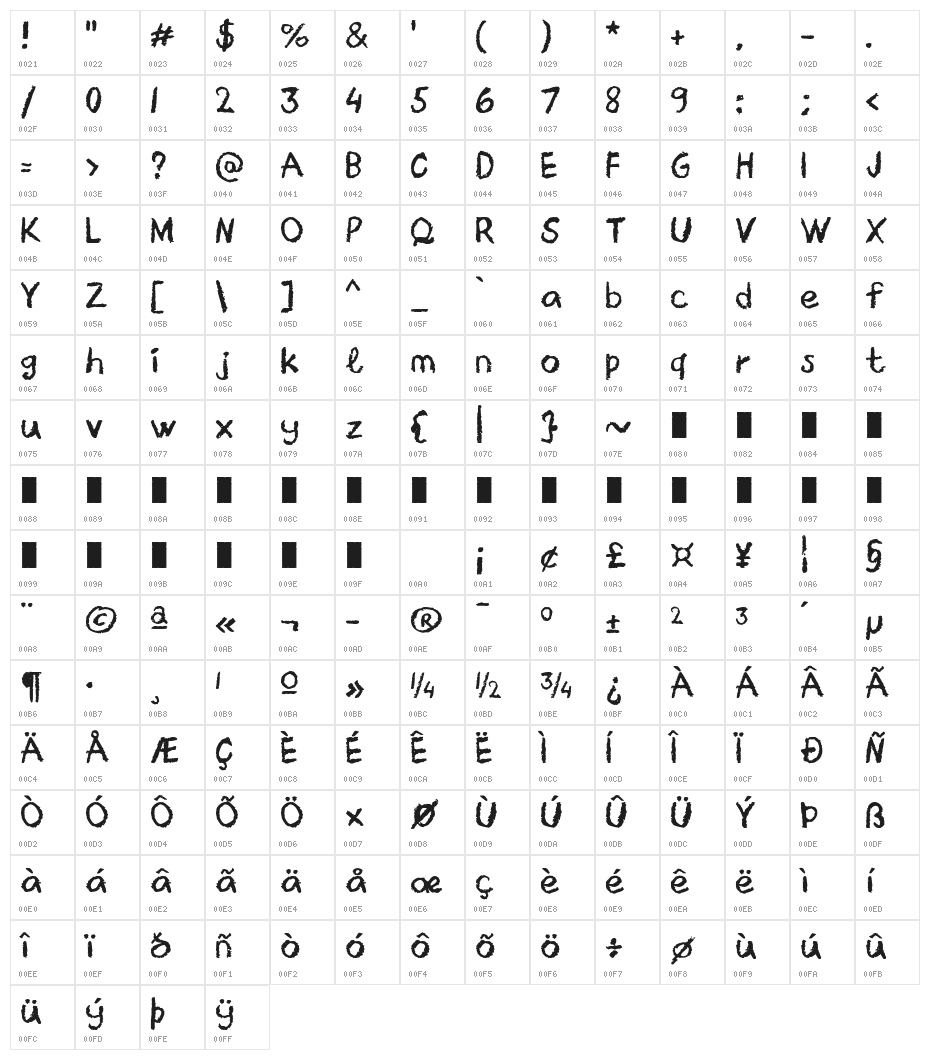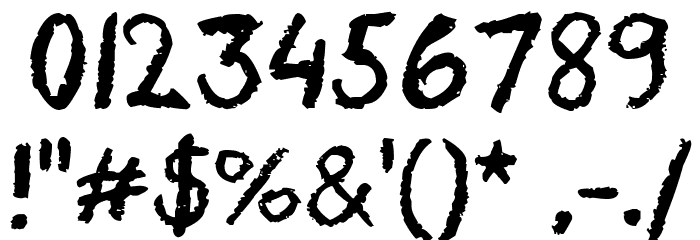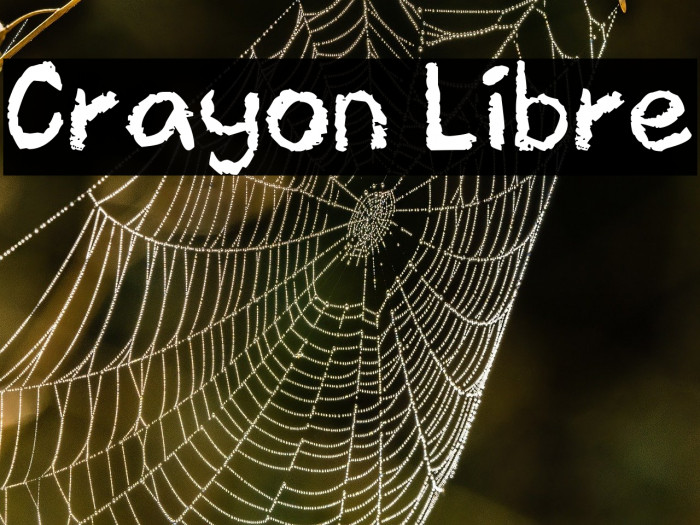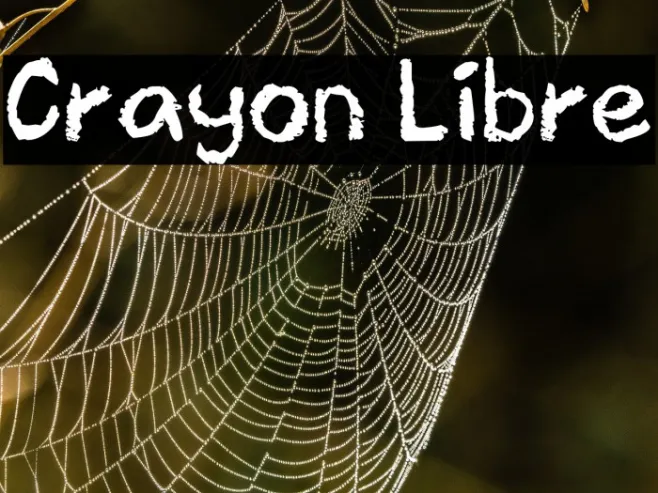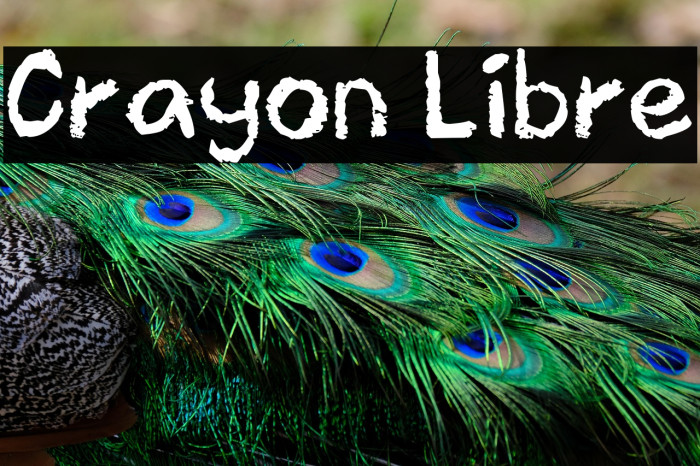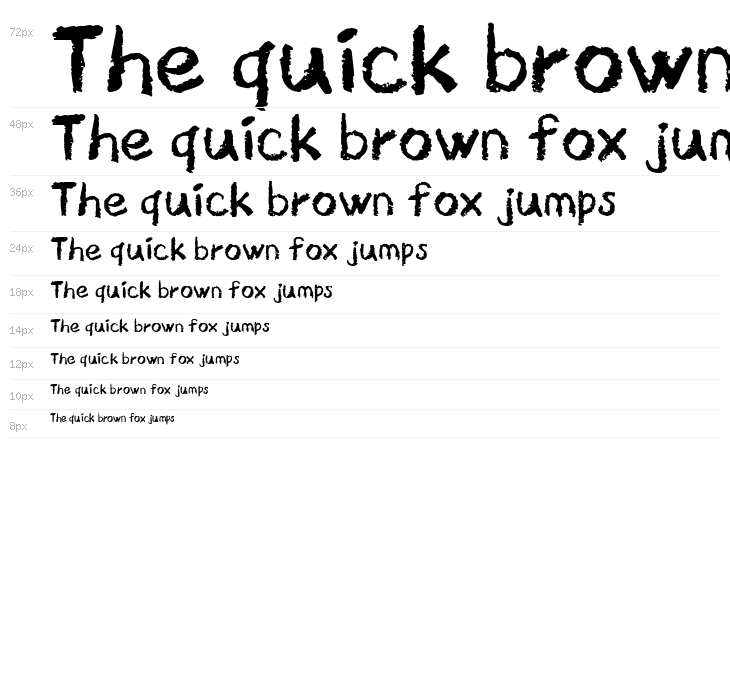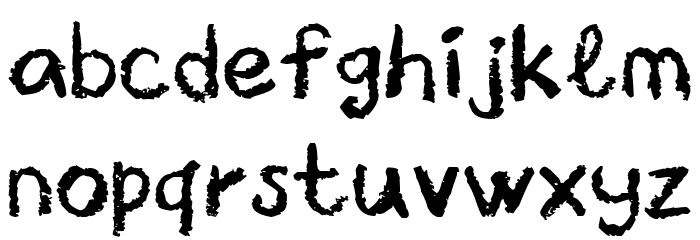
Crayon Libre Font
Crayon Libre Description
This font exudes a playful and artistic vibe, reminiscent of hand-drawn crayon strokes. The letters have an uneven, textured appearance, giving them a lively and informal character. The uppercase and lowercase letters maintain a consistent style, with slightly irregular edges that add to the hand-crafted feel. The numerals and special characters follow the same aesthetic, ensuring a cohesive look across all text elements. This font is perfect for projects that require a touch of creativity and informality, making it ideal for children's books, art projects, and playful branding.
| Overall Style | Playful, Artistic |
| Proposed Projects | Children's books, art projects, playful branding, educational materials. |